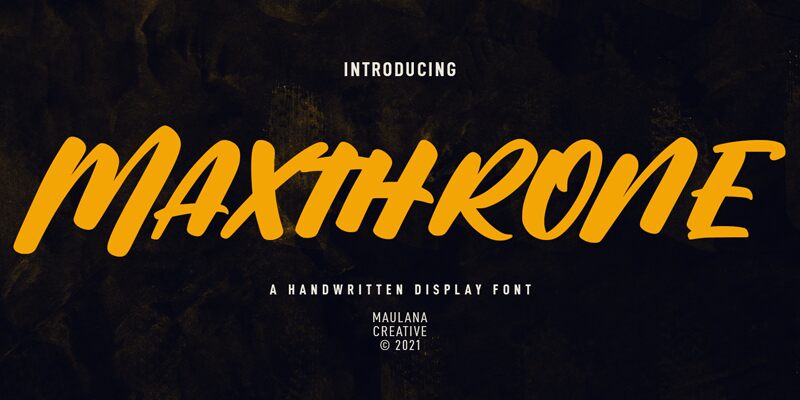
Maxthrone
Maxthrone is a bold, handwritten font designed by Maulana Creative. Perfect for creative projects that require a personal touch, this font will add an artistic flair to any project. Ideal for handmade logos, posters, unique invitations and more!